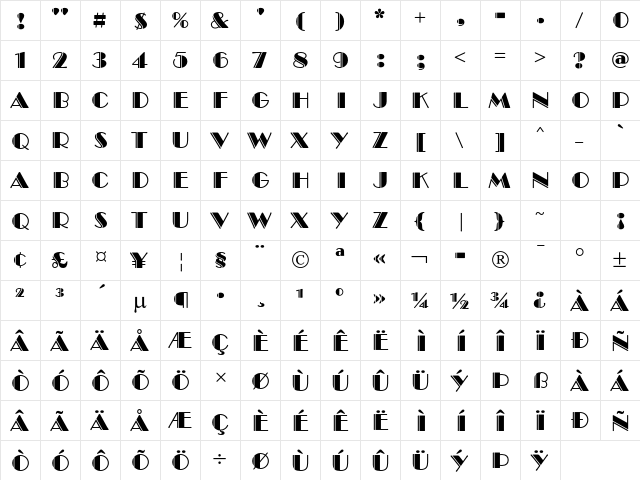
Broadway MT Std Engraved
Design Context for Broadway MT Std Typeface
Broadway MT Std brings ornamental detail and strong personality to headlines and identities, where visual impact matters more than quiet functionality.
Font Pairing: Pair with a clean neutral sans-serif for body copy to let Broadway MT Std's character lead without overwhelming the composition.
Pro Tip: Use Broadway MT Std exclusively at display sizes — it was designed to be seen, not read at length. Let a neutral companion handle body copy.